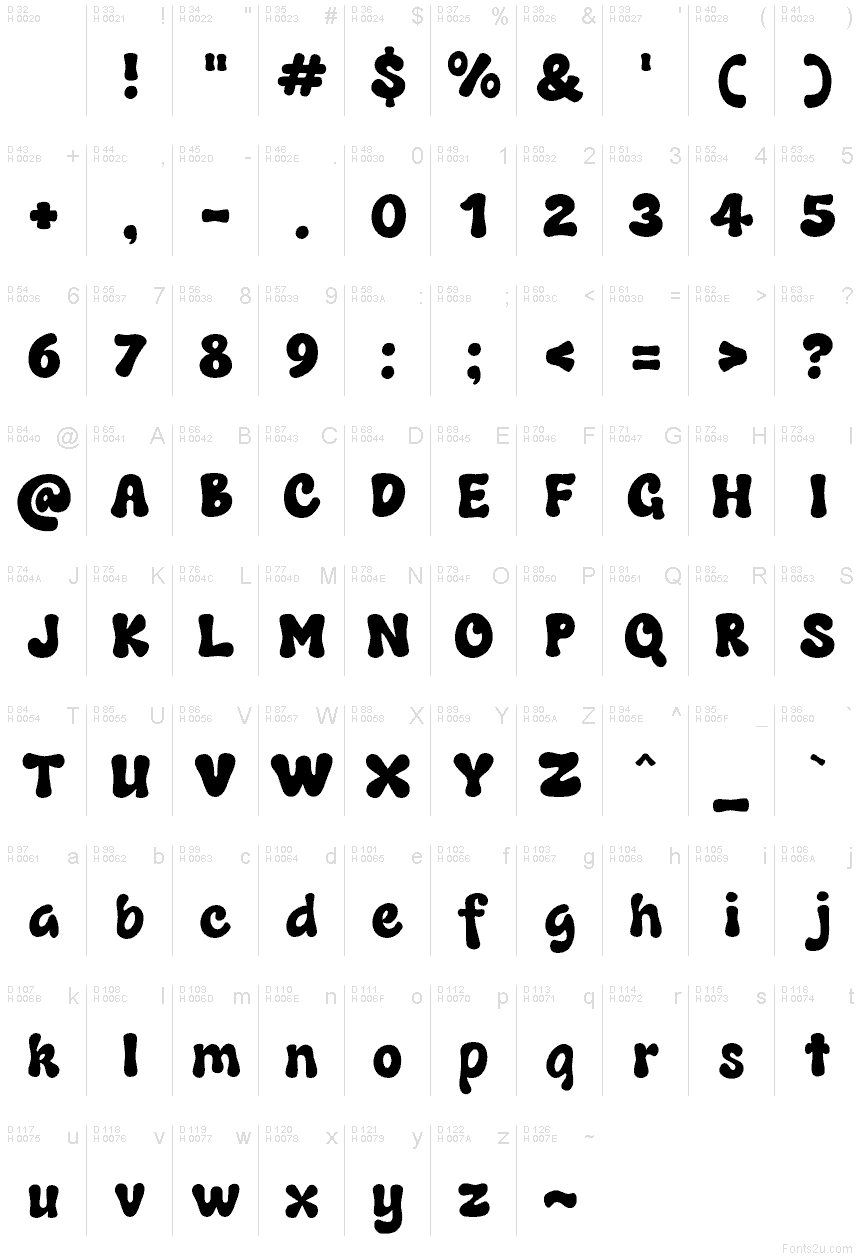
Skytone
Skytone font by MJType is a free cartoon display typeface that feels like it’s been shaped out of soft clouds and wet ink. Each letter is plump, rounded, and slightly bouncy, giving headlines a friendly wobble that reads clearly even at a glance. The strokes are thick and inky, with smooth curves that make the whole wordmark feel cuddly and approachable rather than wild or chaotic.
Using Skytone, you can bring instant playfulness to kids’ book covers, birthday invitations, toy packaging, classroom posters, game logos, and cheerful social media graphics. This free font shines when you set it large, letting those chubby curves and generous counters do the talking; pair it with a clean geometric sans for small supporting text so all the attention stays on Skytone’s bubbly personality.